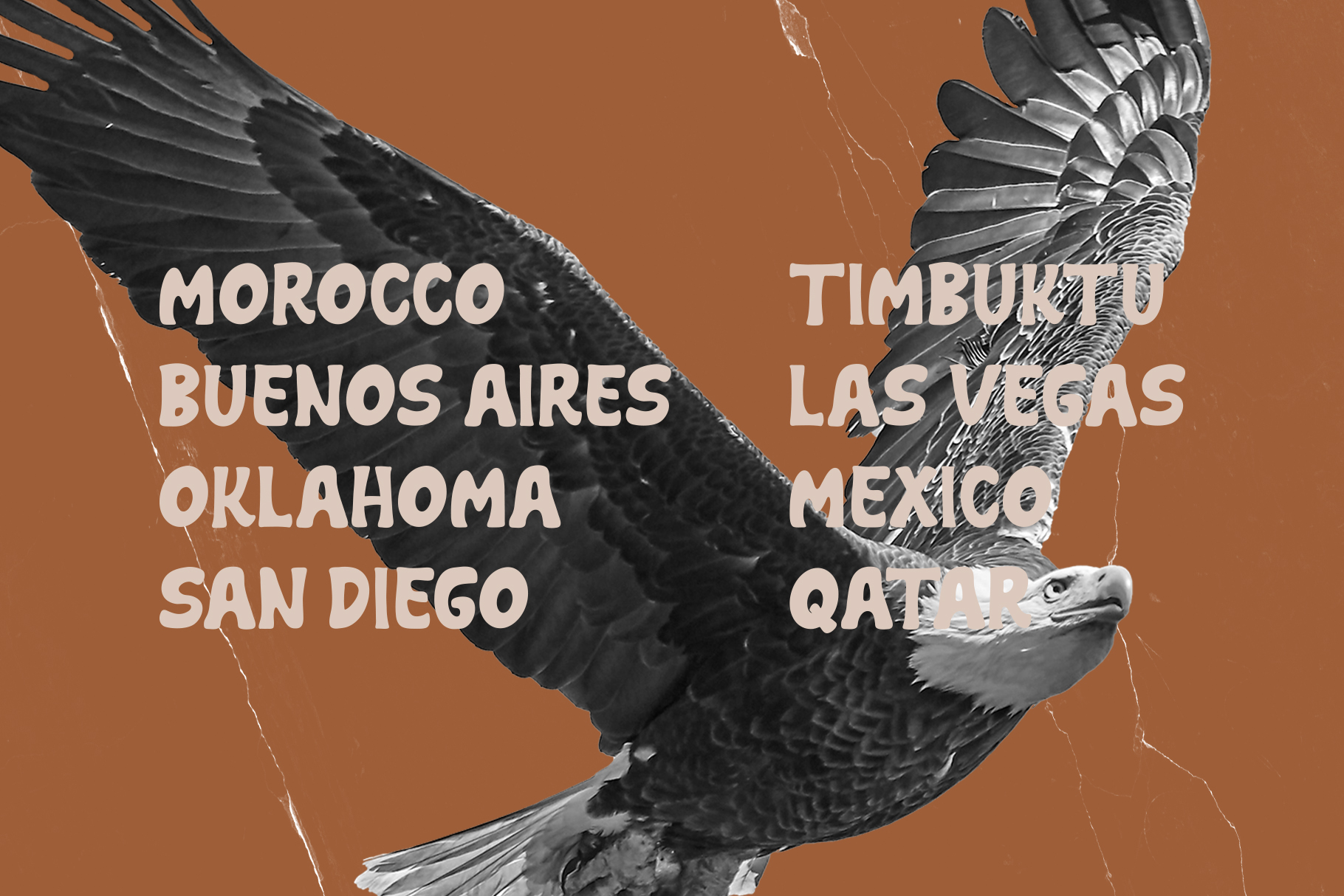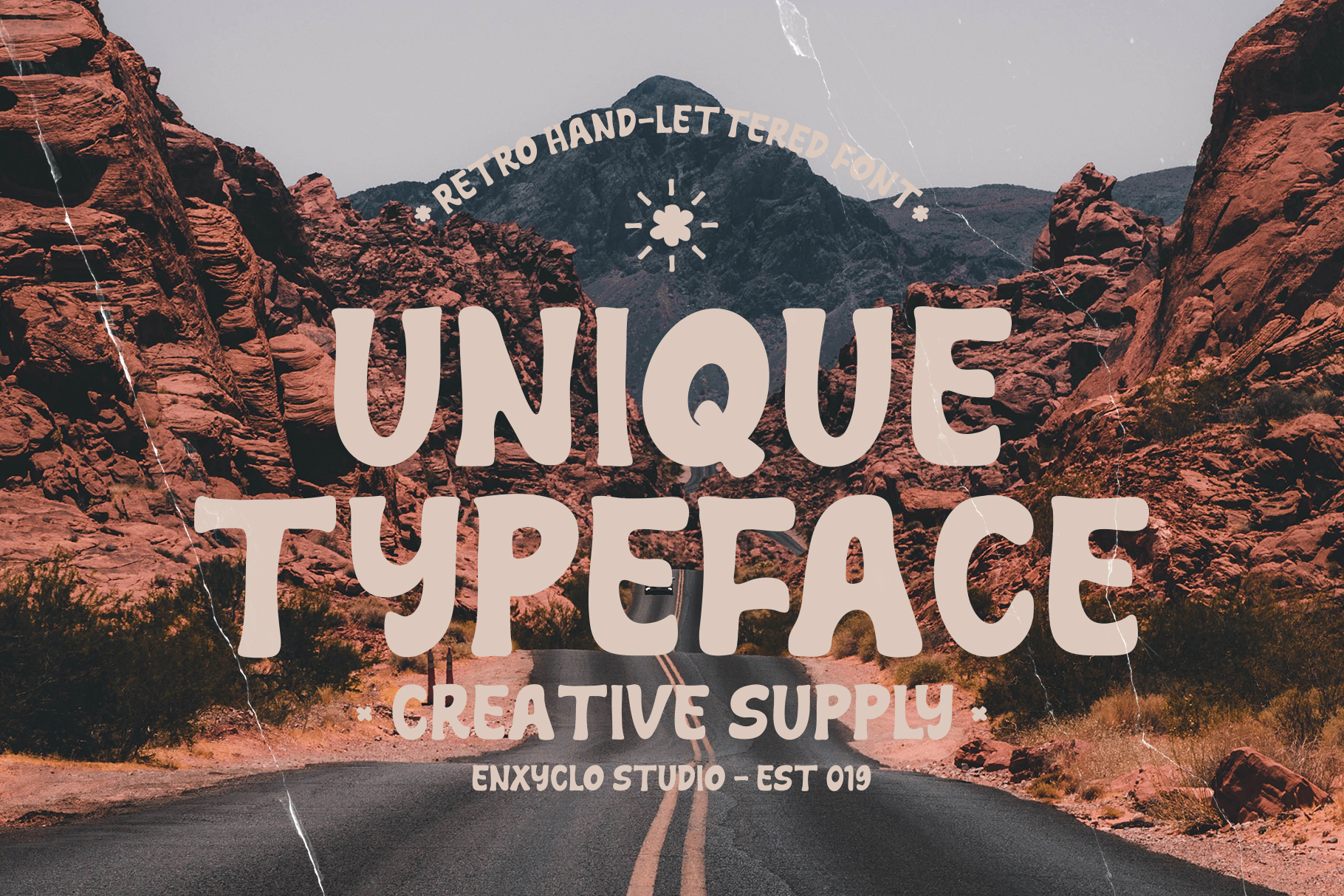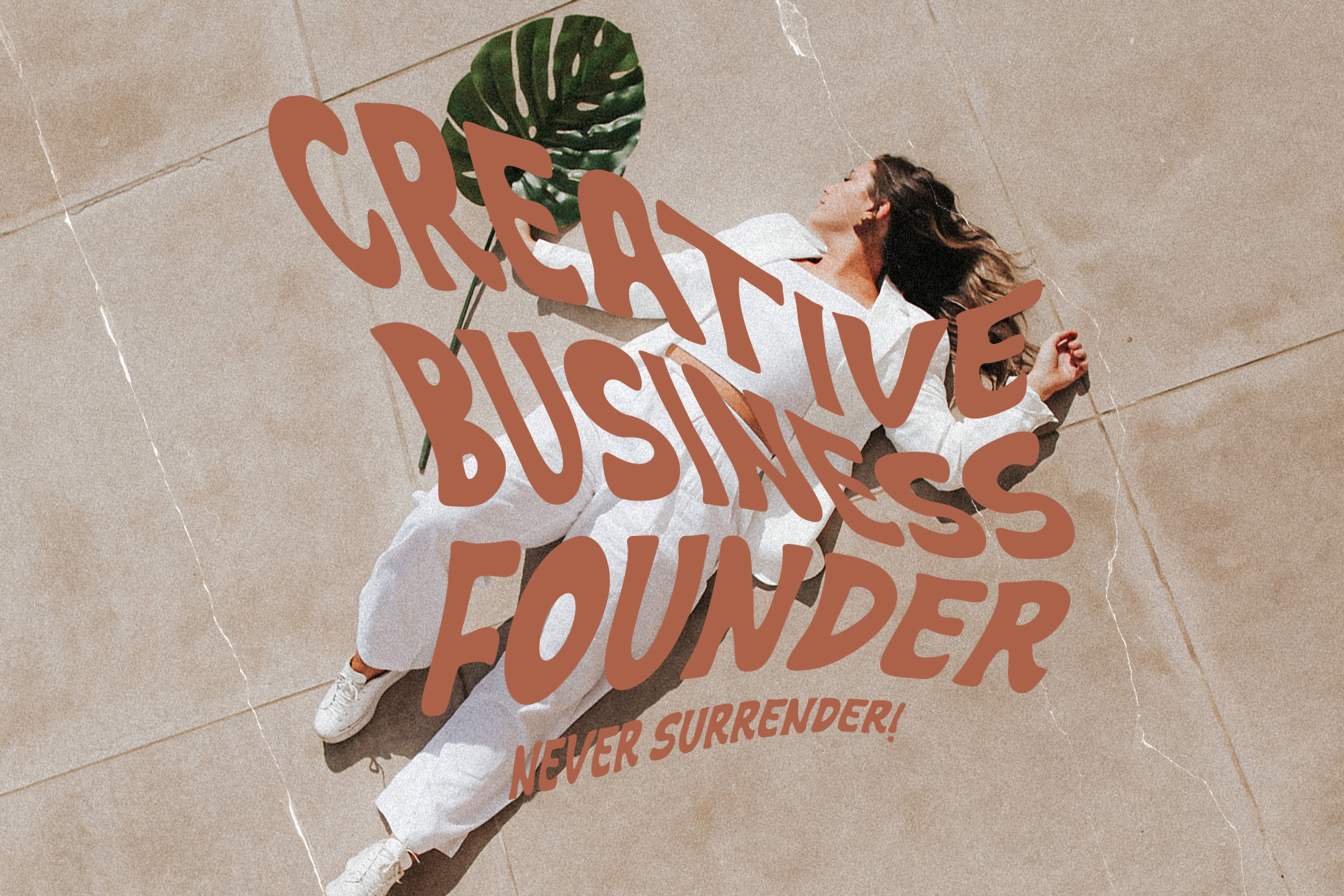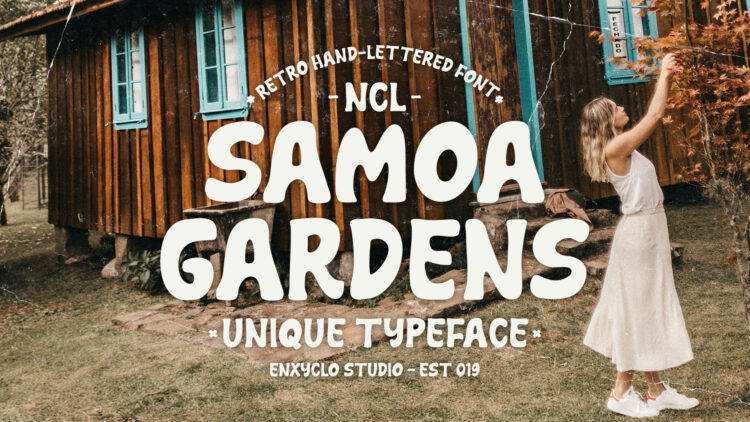
NCL Samoa Gardens – Bold Retro Handwritten Font
NCL SAMOA GARDENS is a simple and unique hand-lettered retro typeface. It’s fun, unique, stylish and modern-classic display font. Masterfully designed to become a true favorite, this font has the potential to bring each of your creative ideas to the highest level! It was purposely crafted to be used in large point sizes, although it doesn’t lose its magic in small point sizes. It is perfect for headline, billboard, magazines, website, titles, poster, branding, t-shirt design, and logos. No matter the topic, this font will be an incredible asset to your fonts’ library, as it has the potential to elevate any creation. With this beautiful font, absolutely you can make your project stand out from the rest. See the previews above to get some inspiration on how to use them.
Uppercase & Numeral